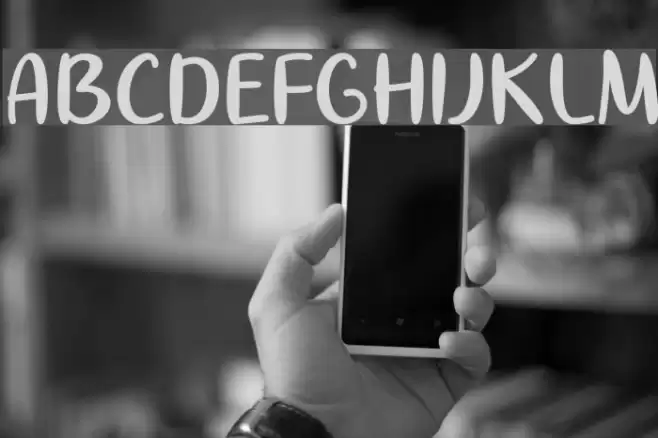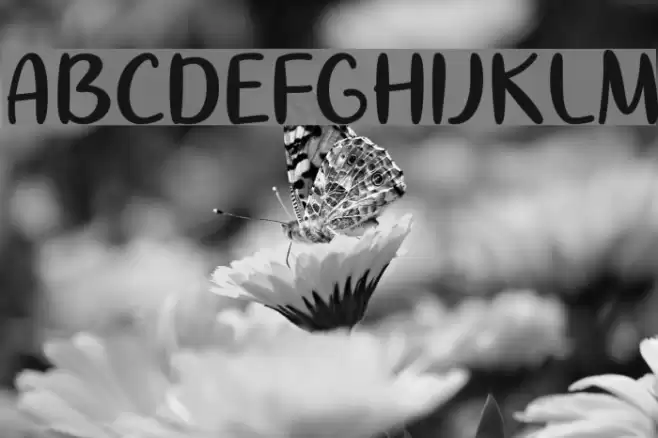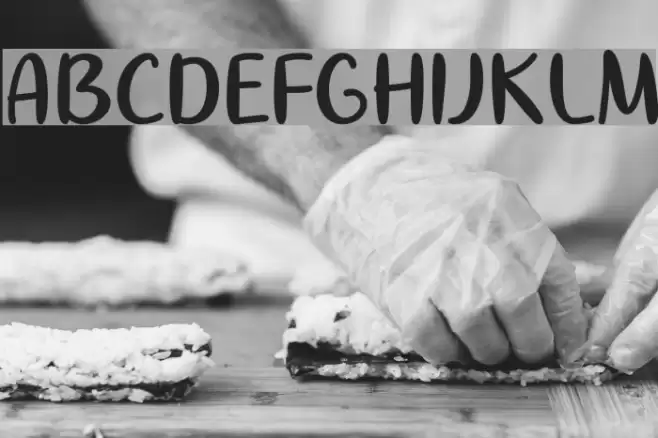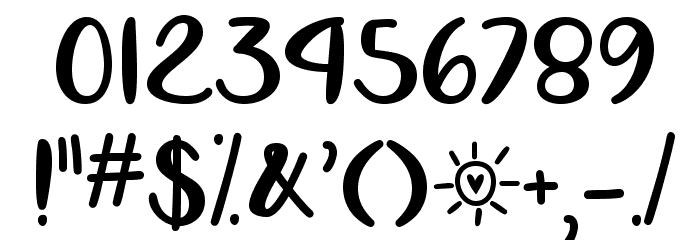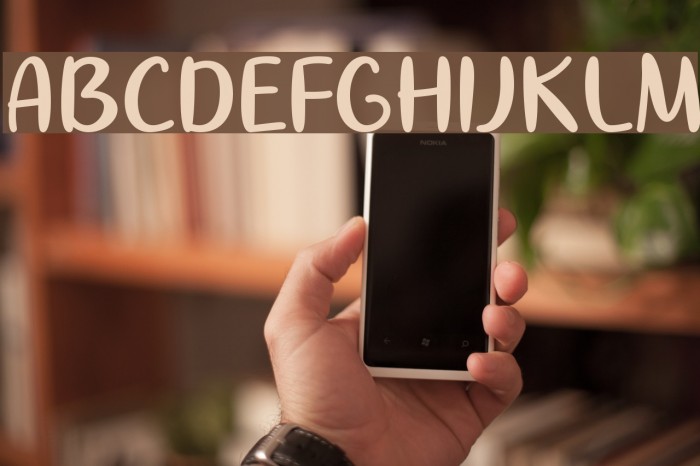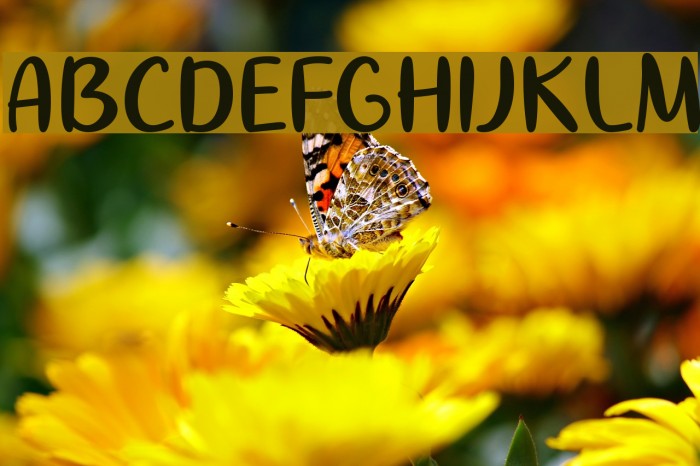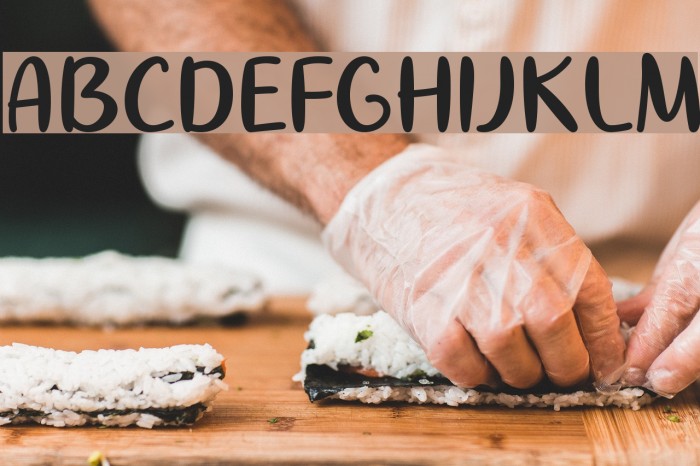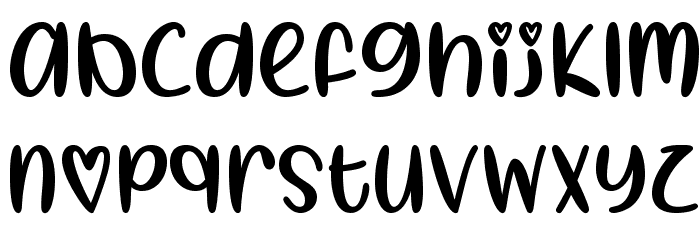
IHeartSummer-Regular Font
IHeartSummer-Regular Description
This playful and whimsical font features a handwritten style with a unique twist. The letters are bold and rounded, with a consistent stroke width that gives it a friendly and approachable appearance. Notably, the font incorporates heart shapes into some of the characters, adding a charming and romantic touch. The overall design is casual yet distinctive, making it ideal for projects that require a personal and creative flair. The numerals and special characters maintain the same playful aesthetic, ensuring a cohesive look across all text elements.
A playful, handwritten font with heart-shaped accents and a bold, rounded style from Uncategorized fonts.
- Proposed Projects: Ideal for greeting cards, wedding invitations, playful branding, and social media graphics.
- Use Case: Logos, Headlines, Invitations